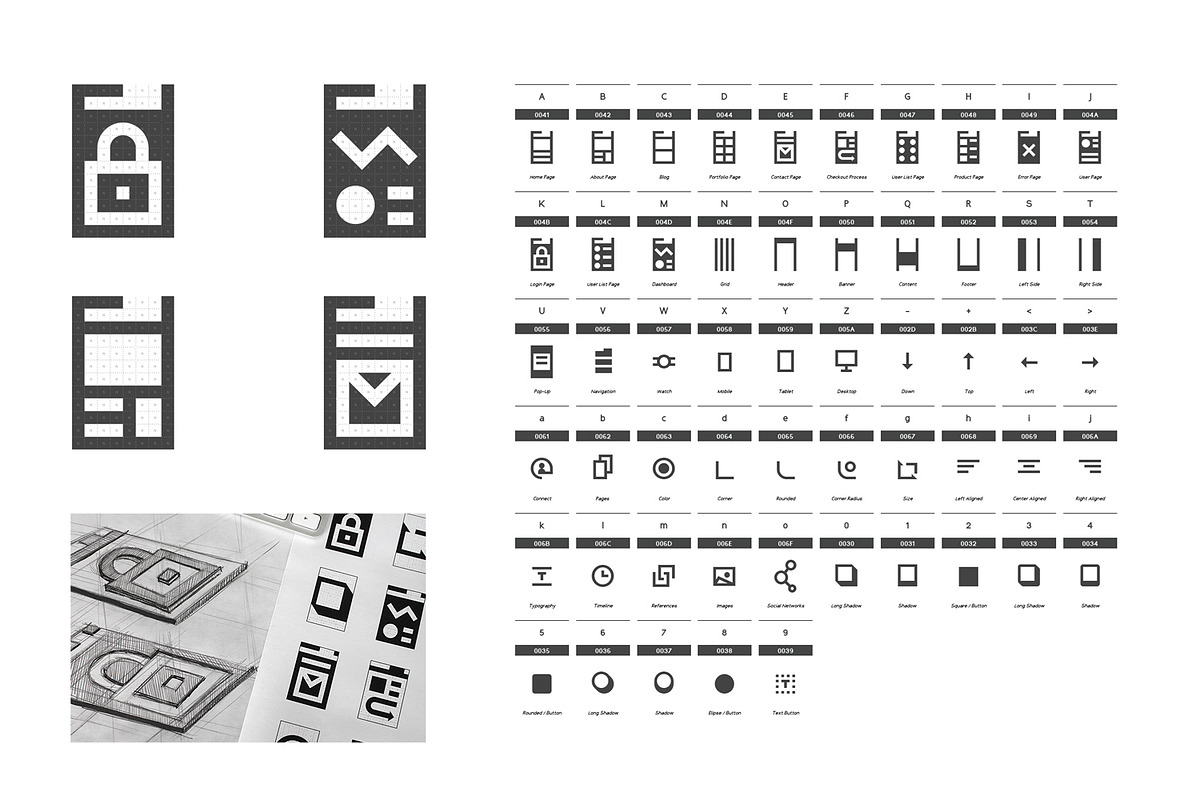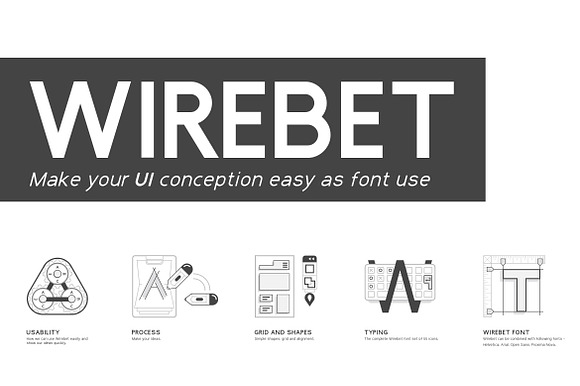
Wirebet Fonts
Wireframe + Alphabet = Wirebet
Wirebet is а font composed of icons that can be used in visualization or presentation of web concepts with or without using graphic software.
The Wirebet icons will help you construct a web concept and can be used as a wireframe. You can use them to visualize or highlight certain web design elements.